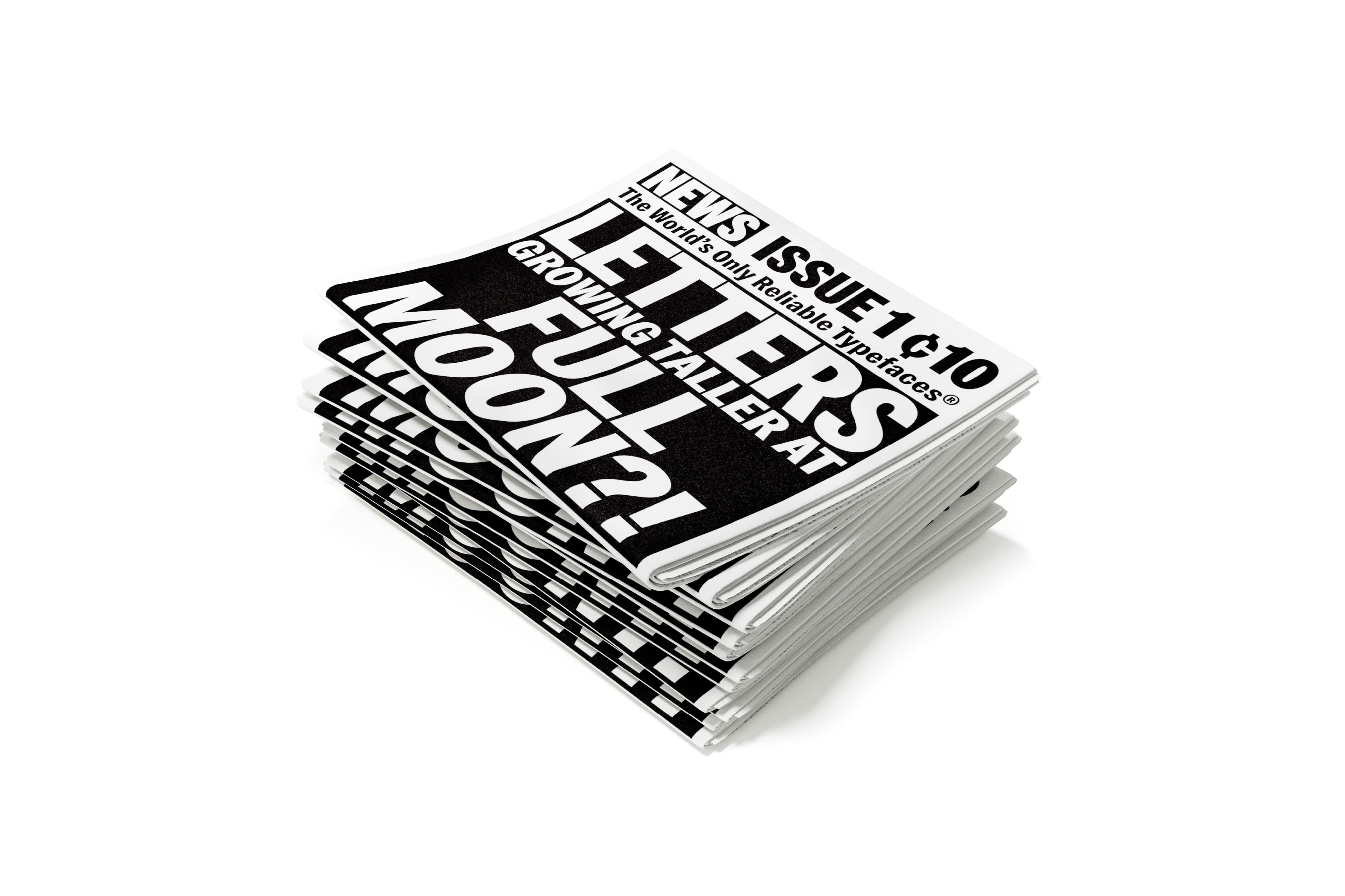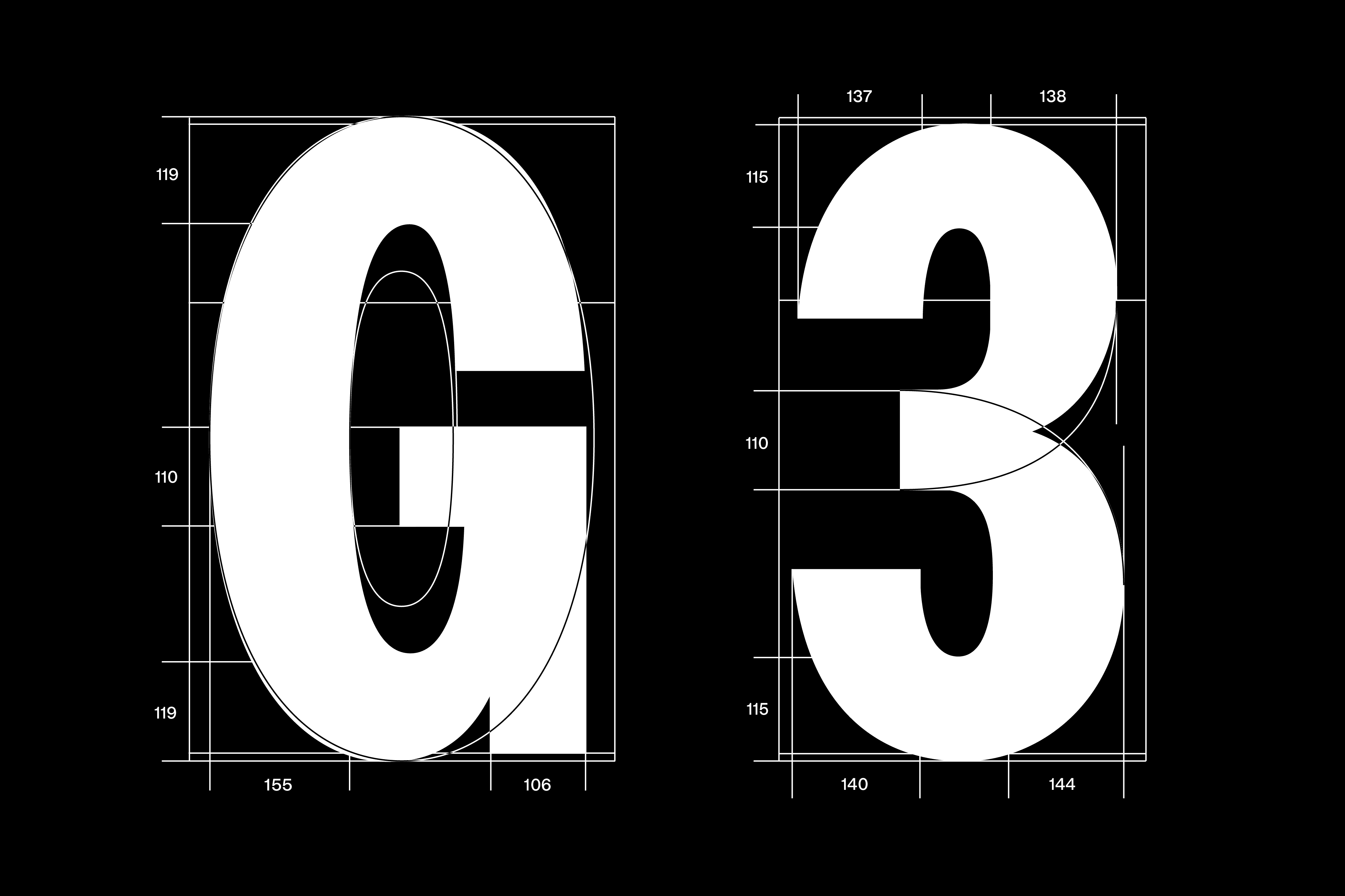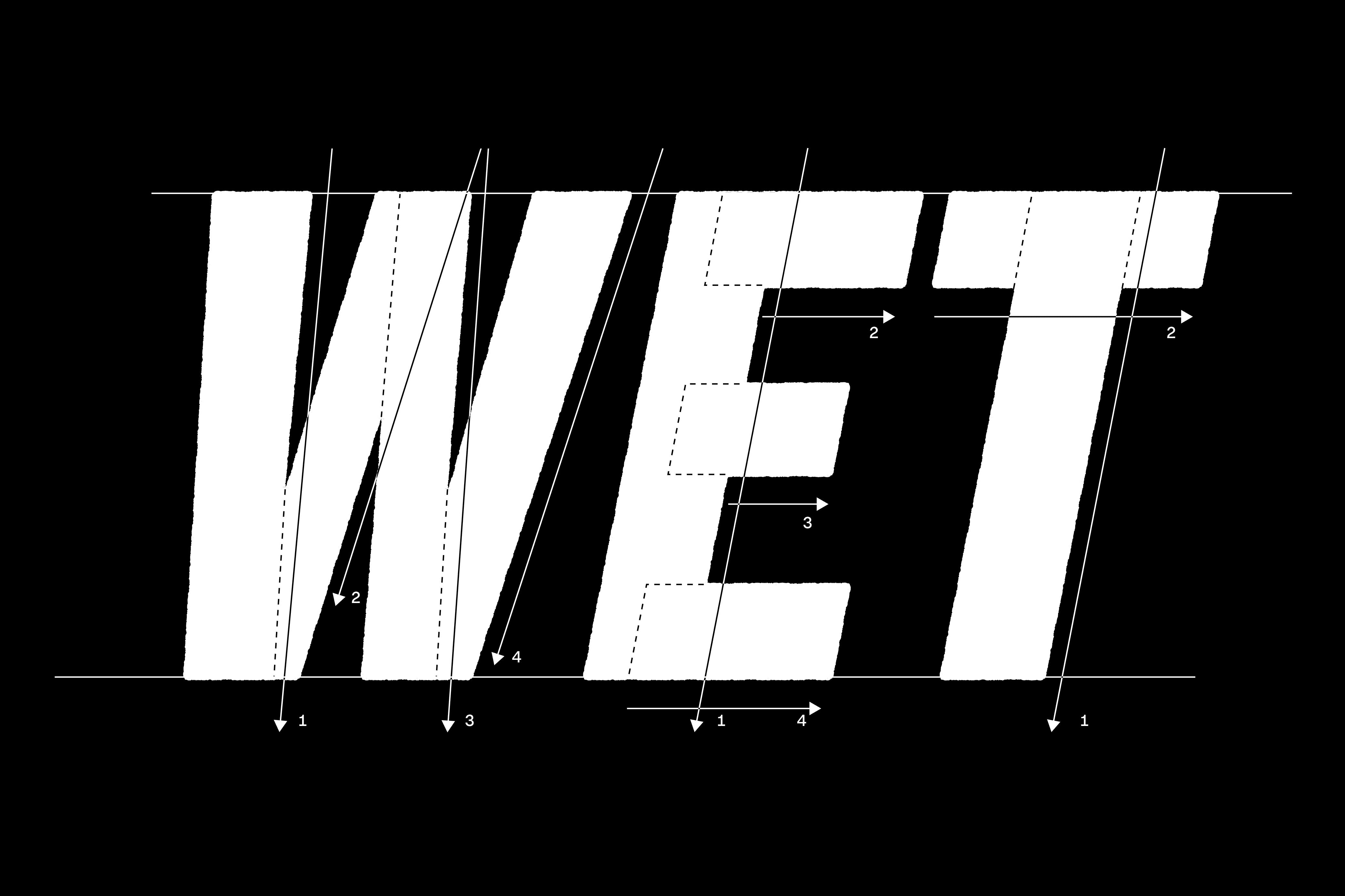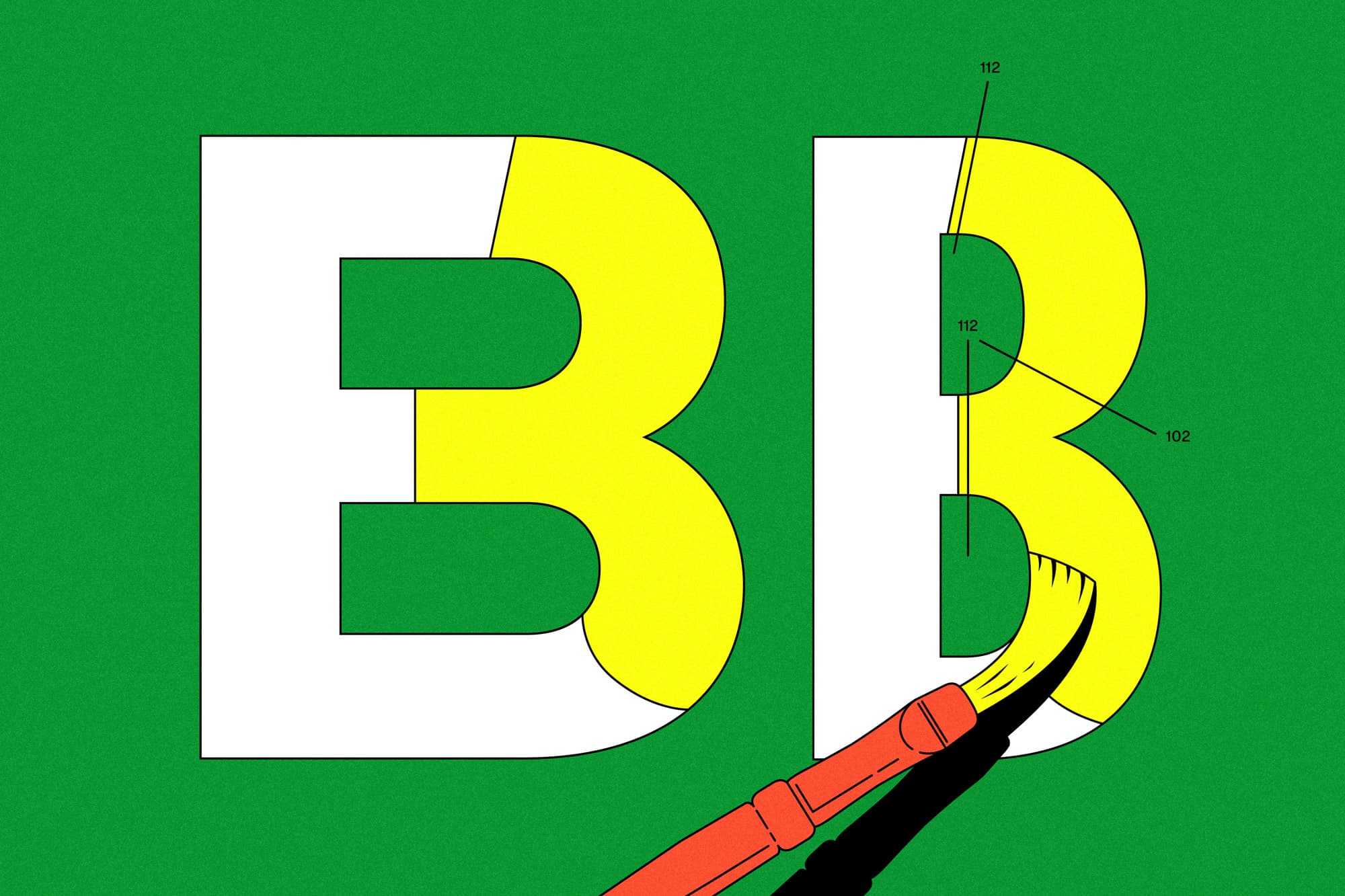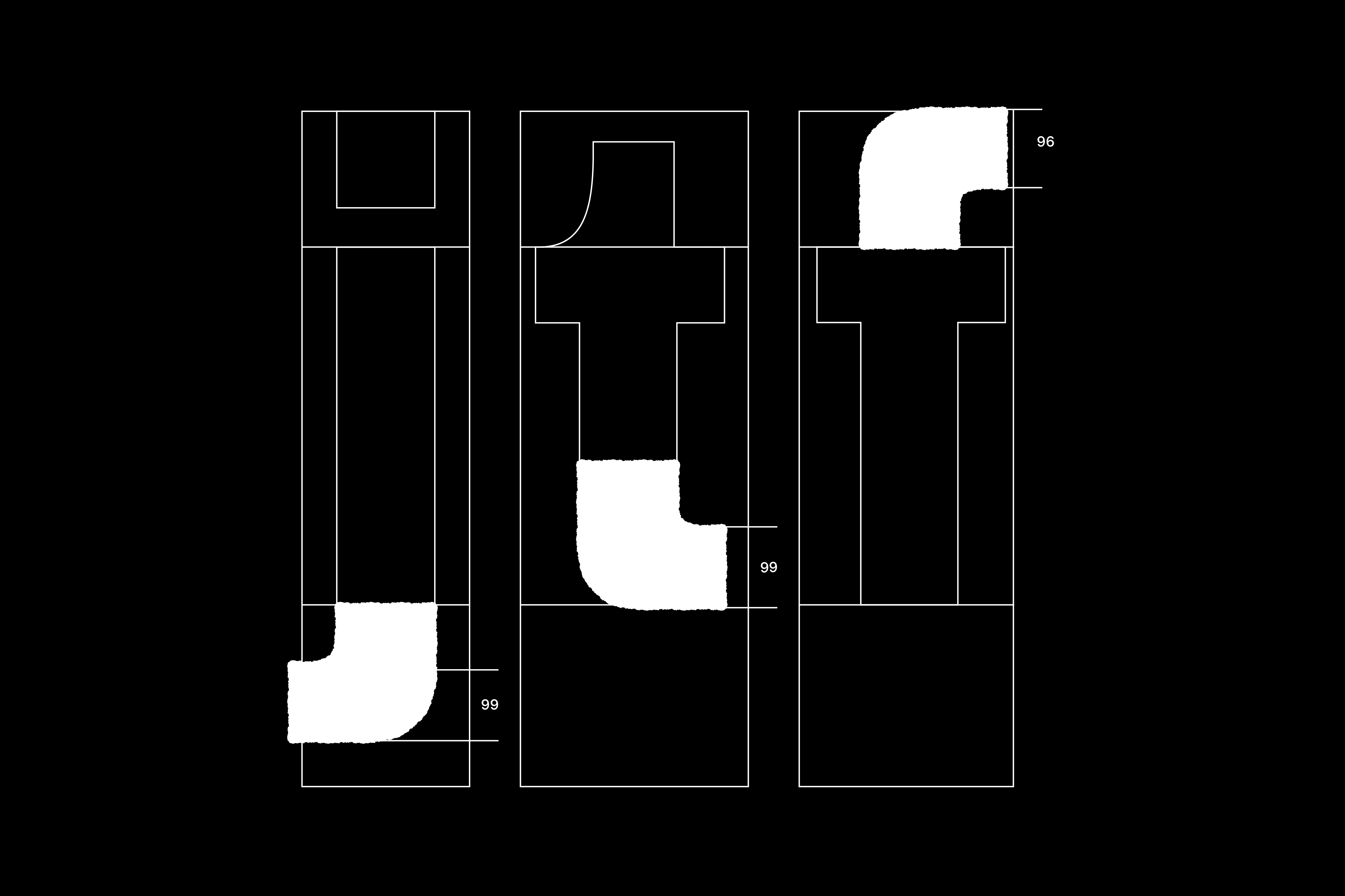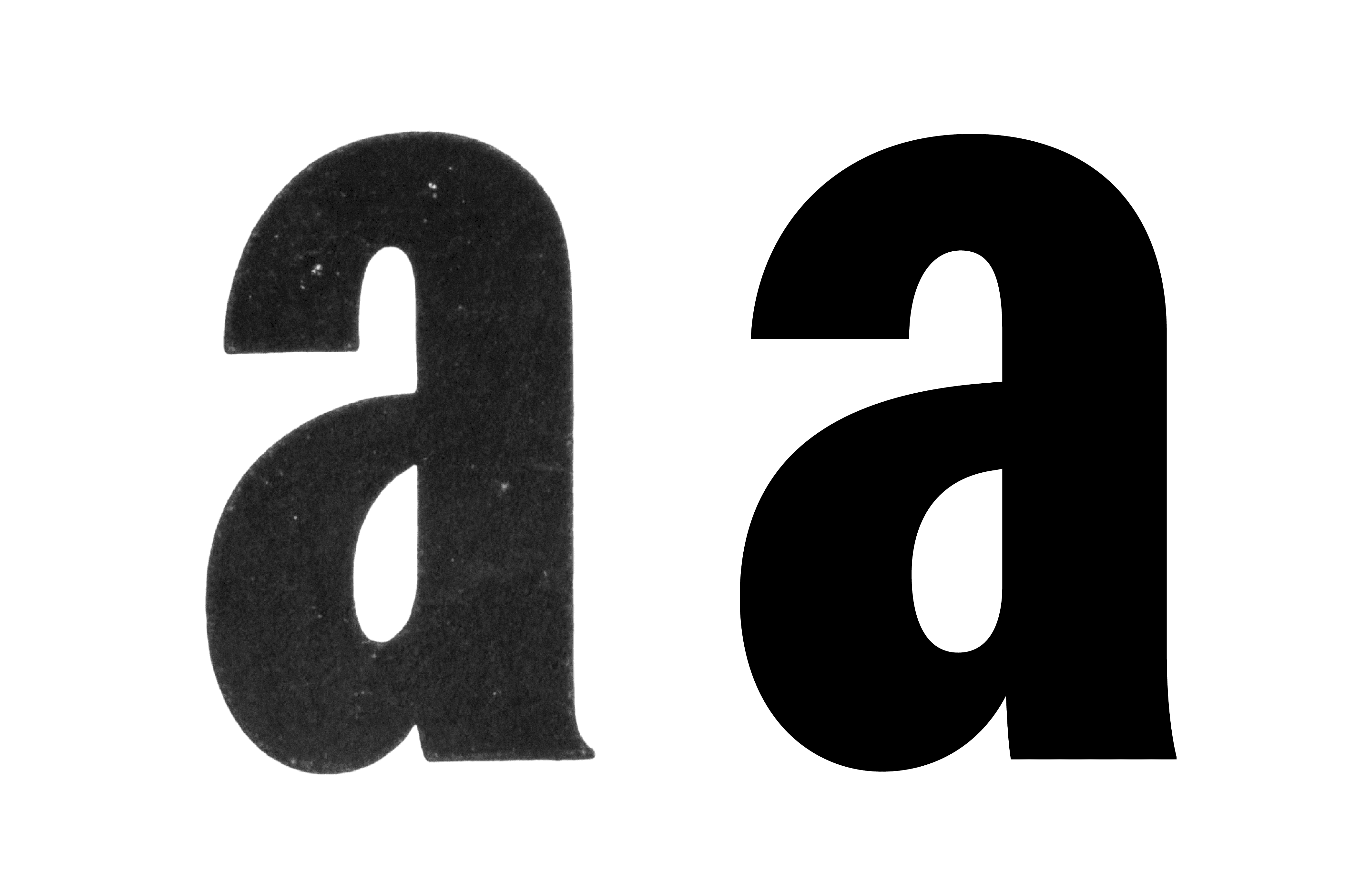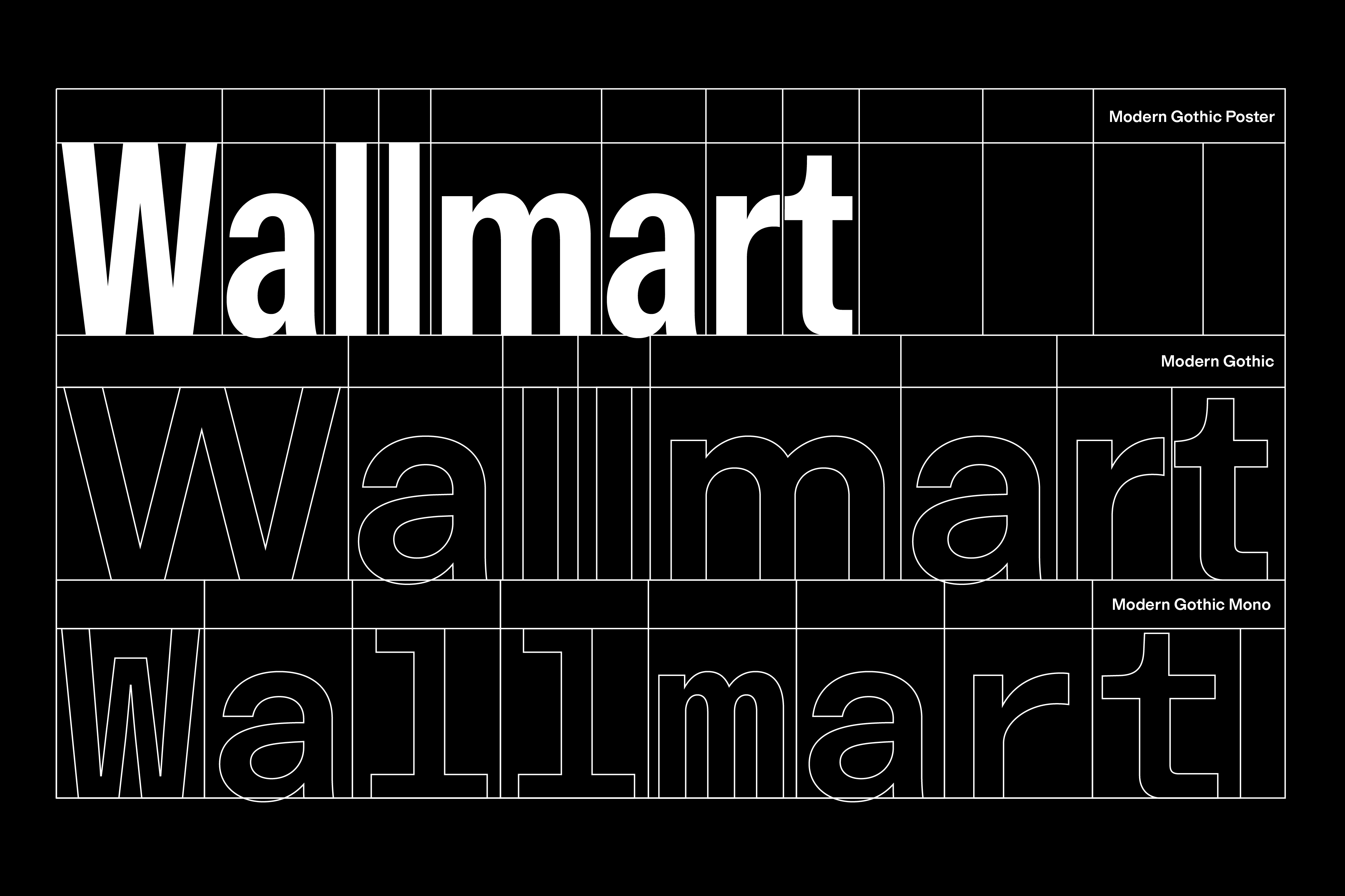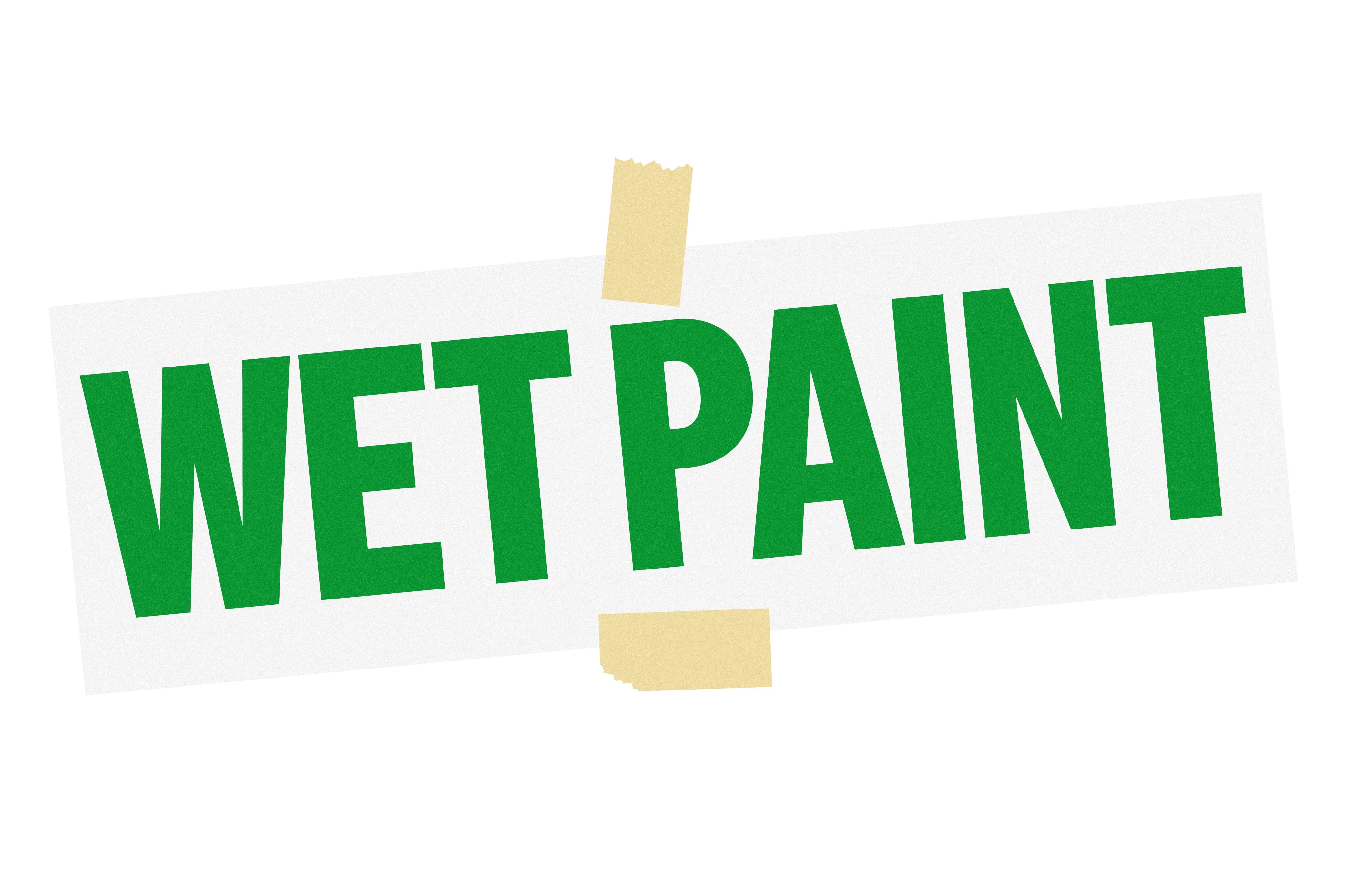
Modern Gothic Poster, the final chapter in the MG blockbuster trilogy, marks a return to the rugged roots of American typography. While noticeably narrower than the standard Modern Gothic, it is far more than a condensed version; every curve and counter has been thoughtfully reimagined. Modern Gothic Poster explores a spectrum of letterform proportions, where the increased contrast commands attention. Drawing inspiration from early American gothics that once shouted from shopfronts and newspaper headlines, this typeface asserts itself with clarity and force. There is no reading between the lines: Modern Gothic Poster speaks loud and bold, straight to the point. Further contributing to this punchy aesthetic, the terminals subtly expand, shifting away from the geometrically pure round forms of the regular Modern Gothic and towards a more condensed, oval-like shape. The family is versatile yet concise, offered in Medium, Bold, and Black weights, each with a matching italic.
Historical models, from lesser-known sources like Modern Gothic Condensed¹ to celebrated classics such as Franklin Gothic², provided robust source material and historical guidance for Modern Gothic Poster. Their influence helped transition American identity into the sans serif landscape of the 20th century, cementing features like the double-story g as a quintessential American gesture. Modern Gothic Poster carries this feature forward with its own cut-specific version, reinforcing an enduring typographic legacy.
Although Modern Gothic Poster may be the loudest of the bunch it doesn’t overshadow the rest of its family. The weights and proportions have been carefully balanced to allow for a harmonious combination with its Standard and Mono siblings. Produced and directed by Malte Bentzen, the Poster delivers an amplified historical resonance — echoing the spirit of early American gothics into the digital age.
Classification: Neo Gothic/Grotesk
Cuts: 6 (3 styles with italics) + Variable
OpenType Features:
- ss01
- Single storey a
- ss02
- Single storey g
- ss03
- Alternative J
- ss04
- Circled numbers
- ss05
- Negative circled numbers
- ss06
- Numbers on square
- ss07
- Negative numbers on black square
- subs
- Subscript
- sups
- Superscript
Single storey a (ss01)
Leaks
Single storey g (ss02)
Signal
Alternative J (ss03)
Justice